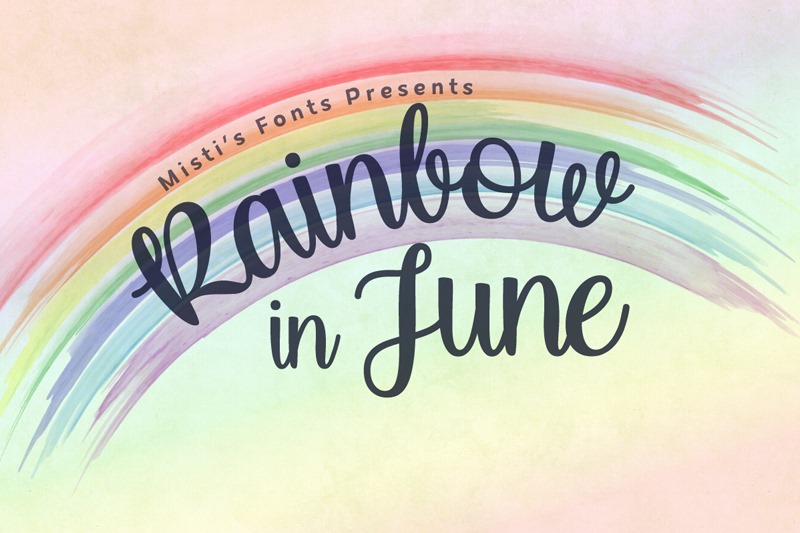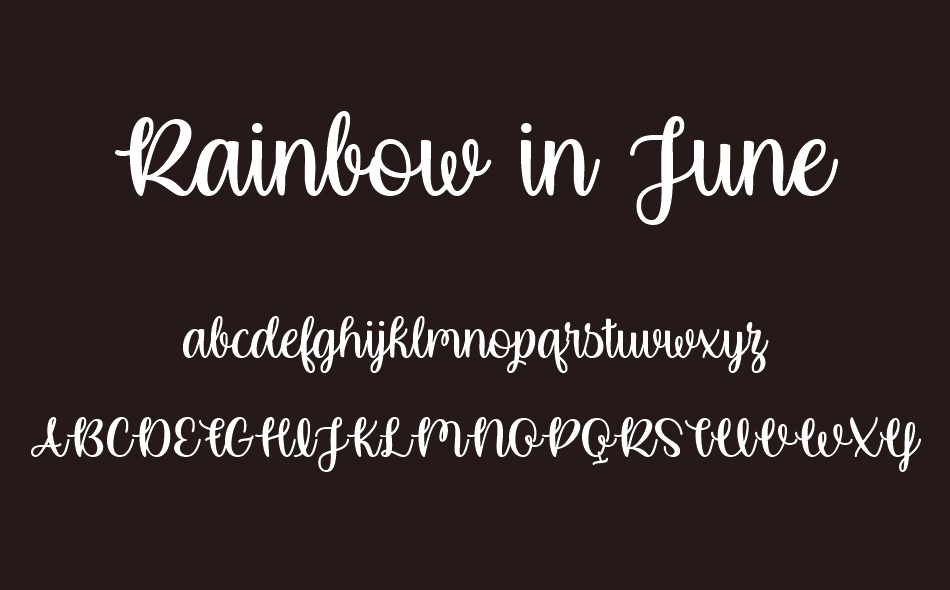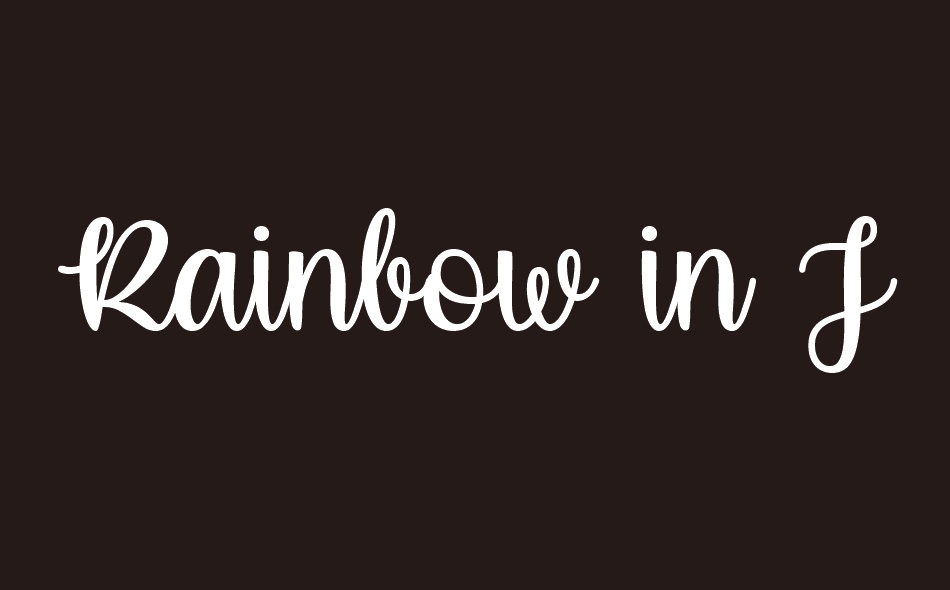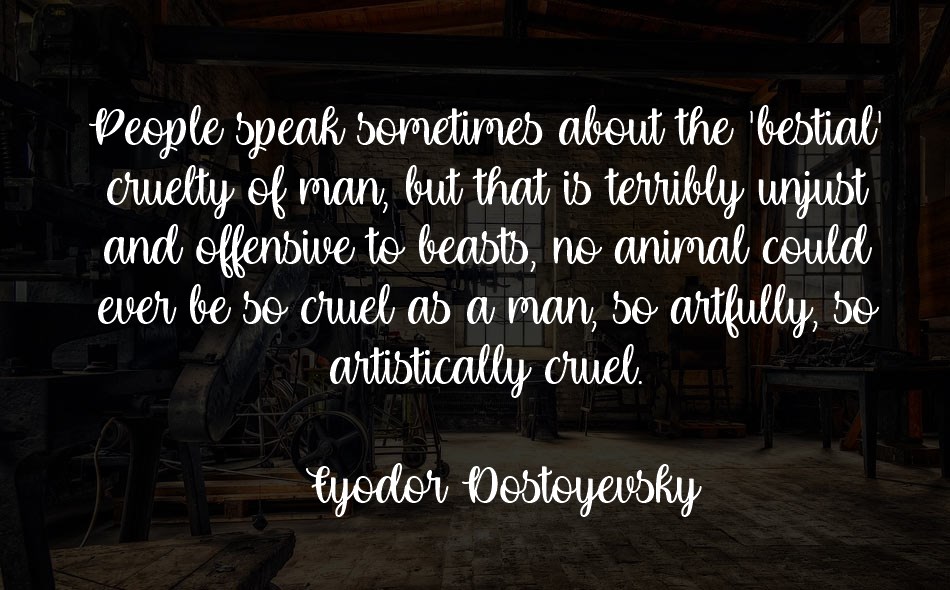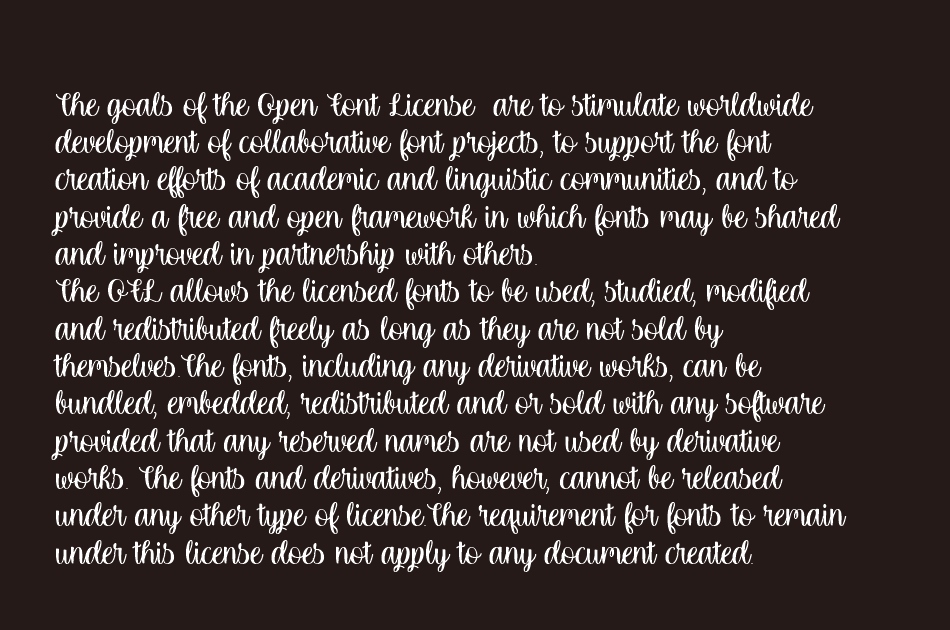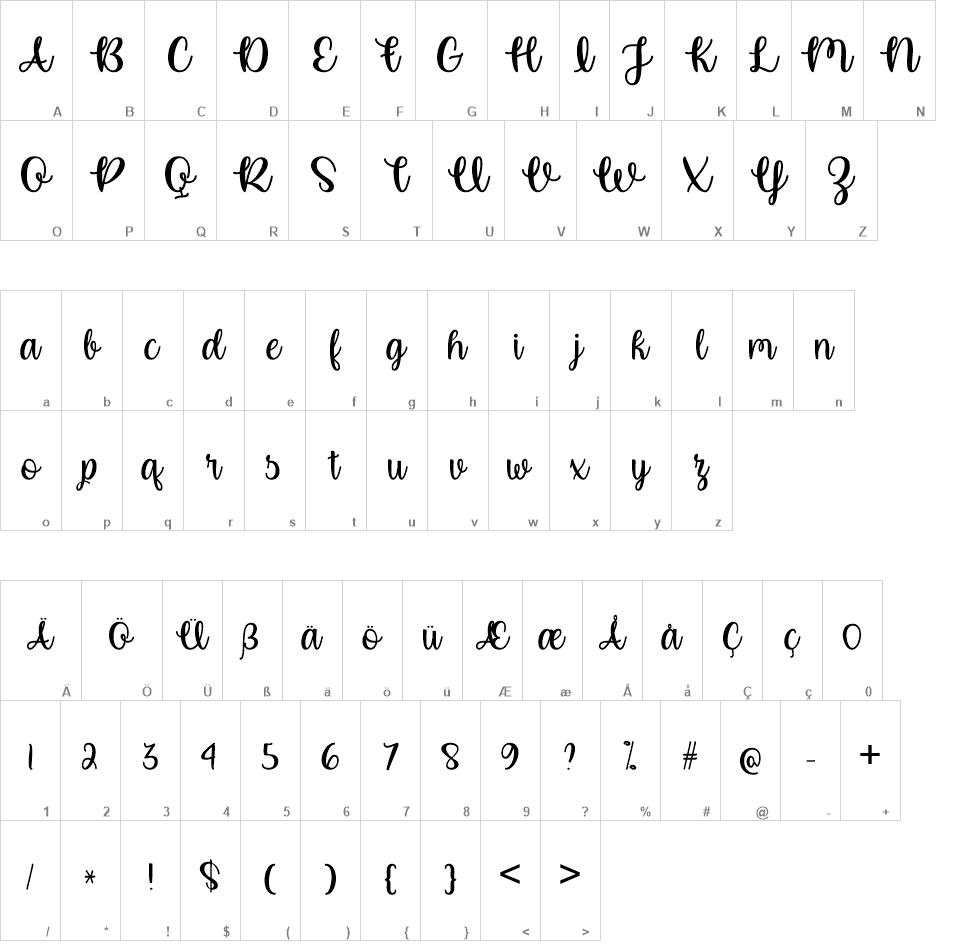
Rainbow in June font
Rainbow in June is an adorable and cursive script typeface. It would be an amazing fit for cute greeting cards, blog post graphics, shop logos and any project that needs a special personalized touch.